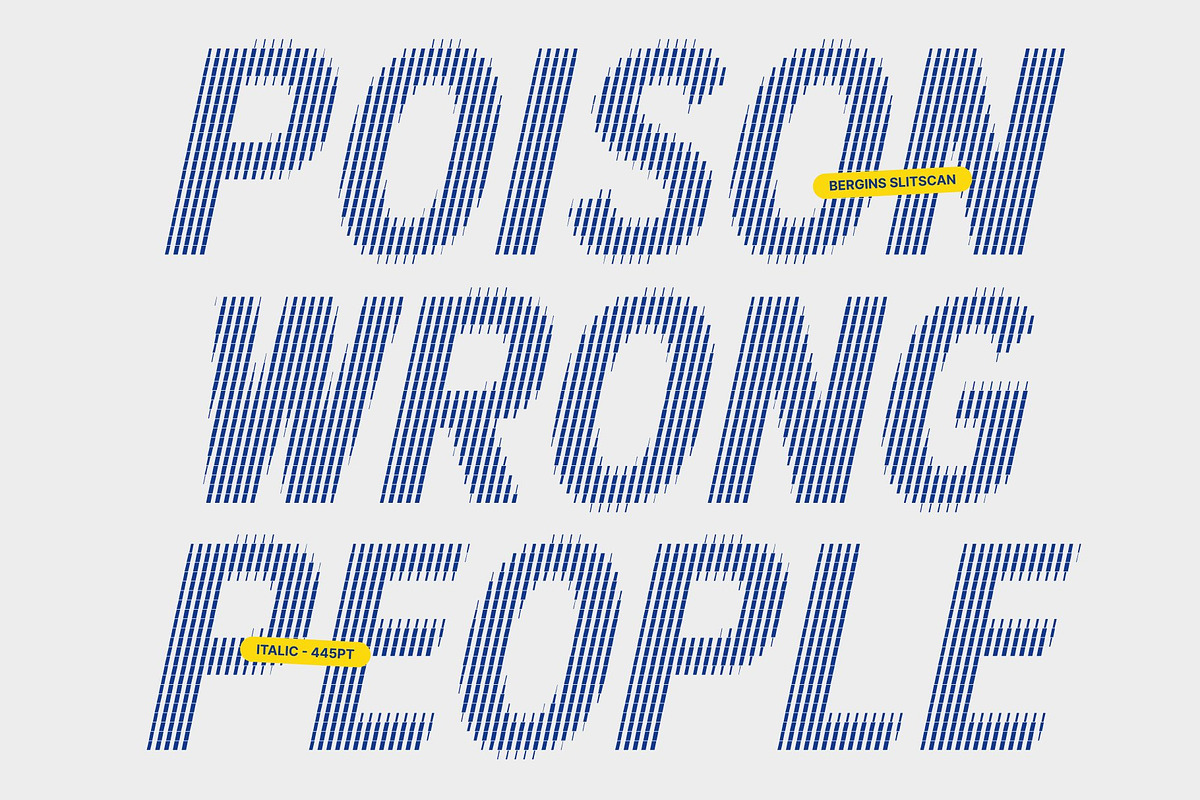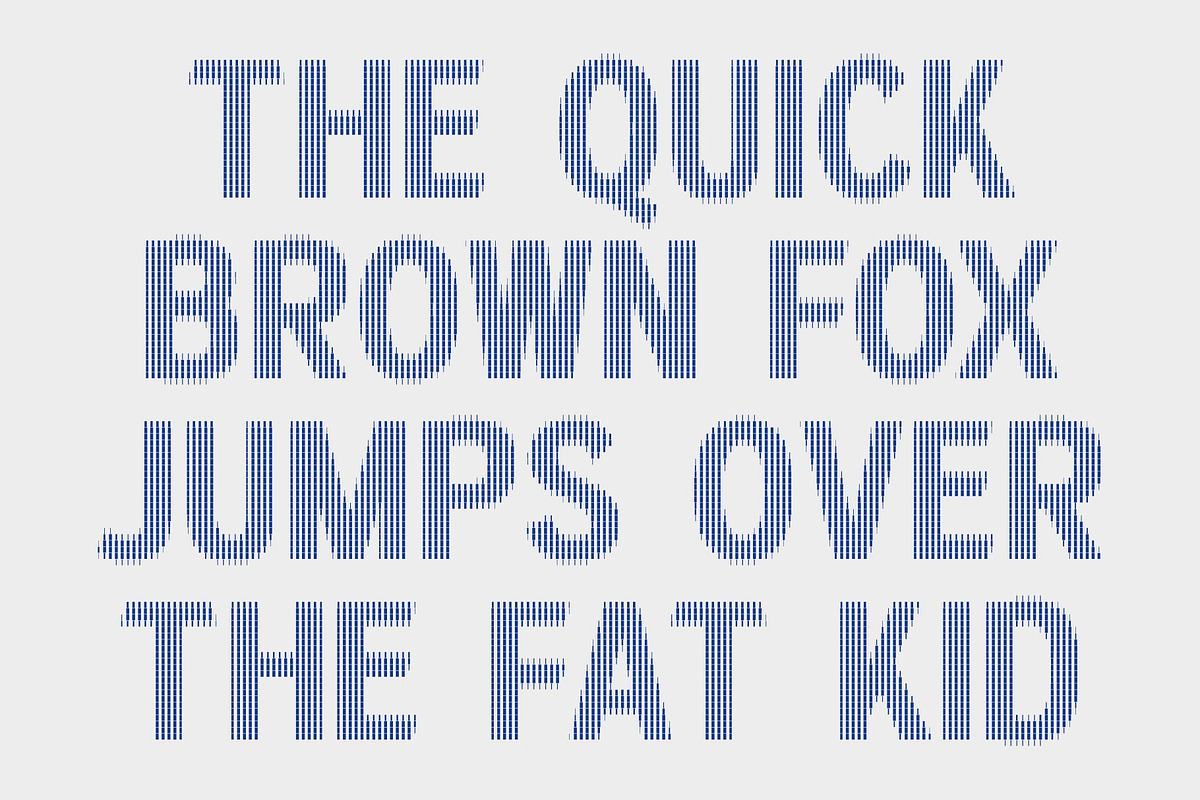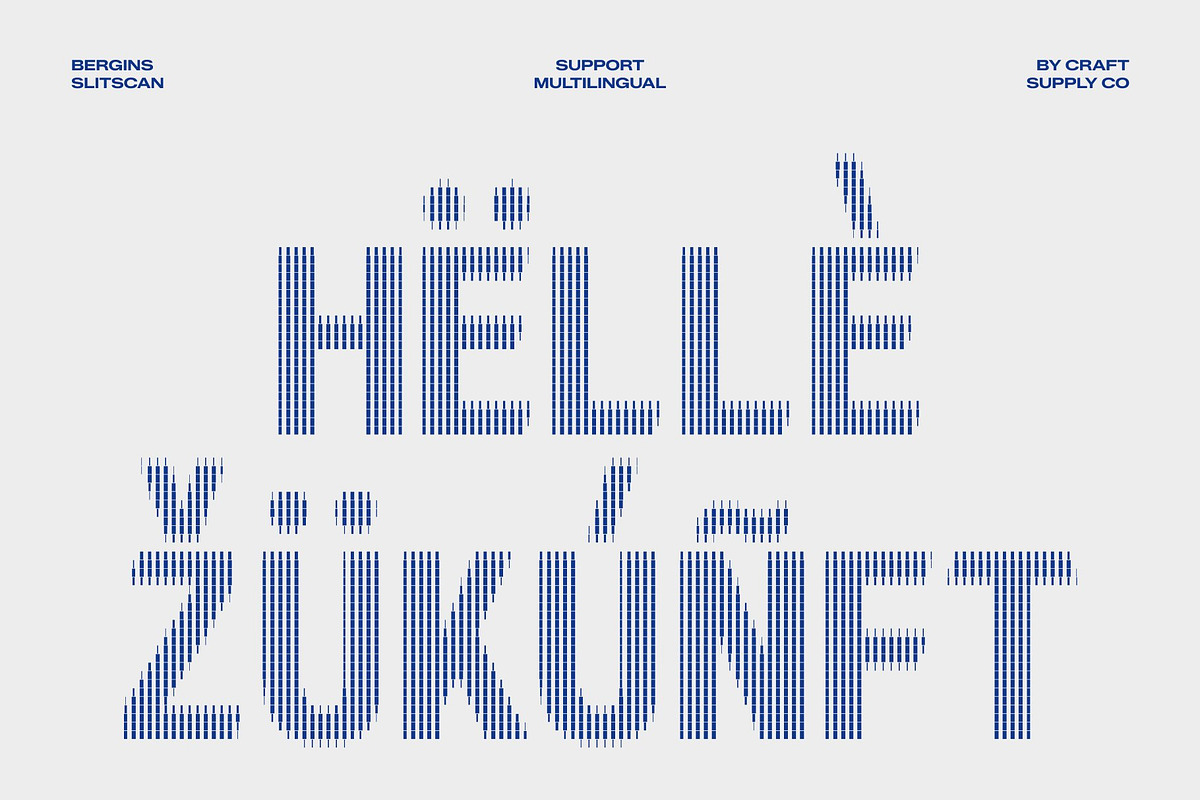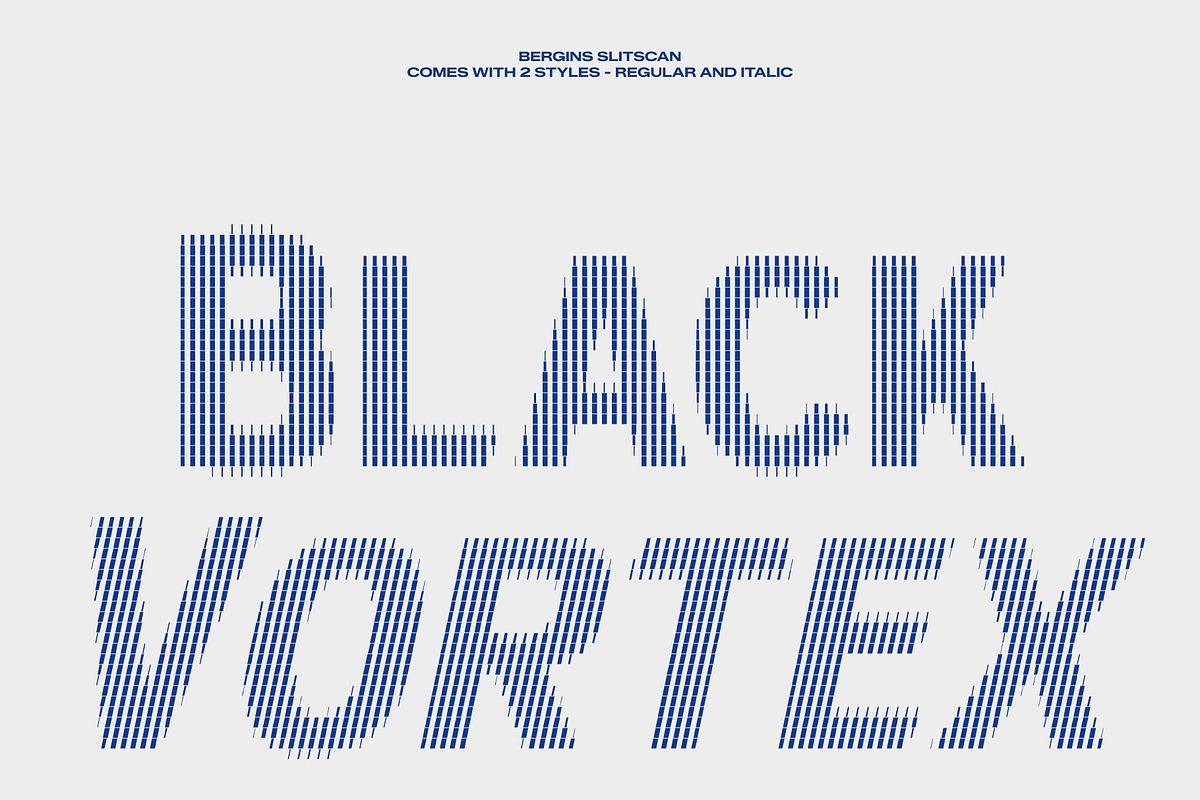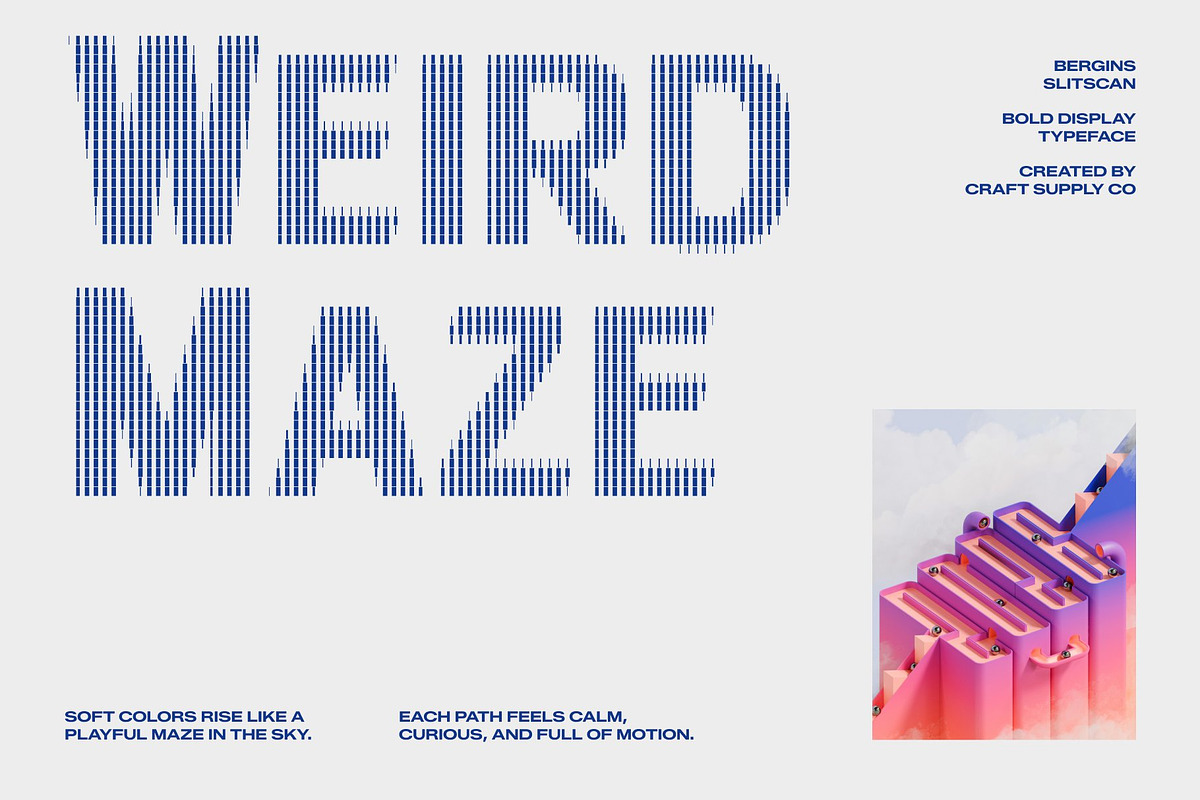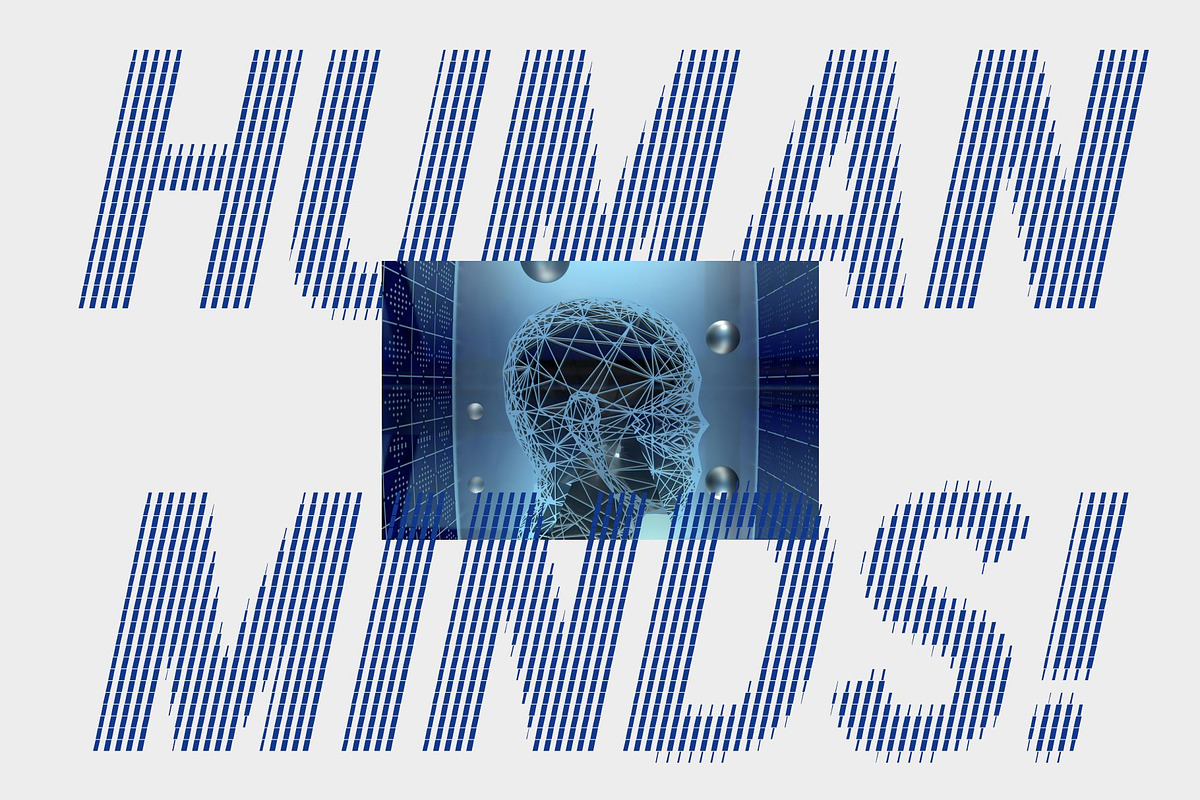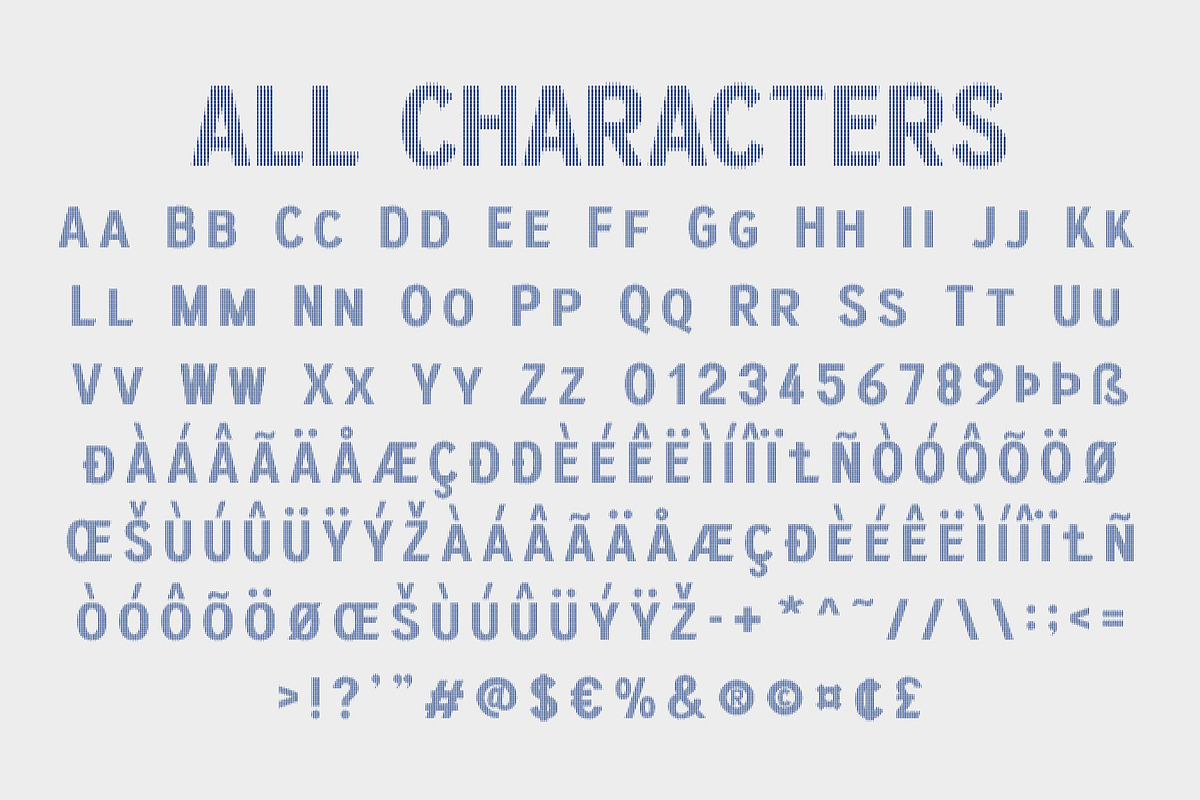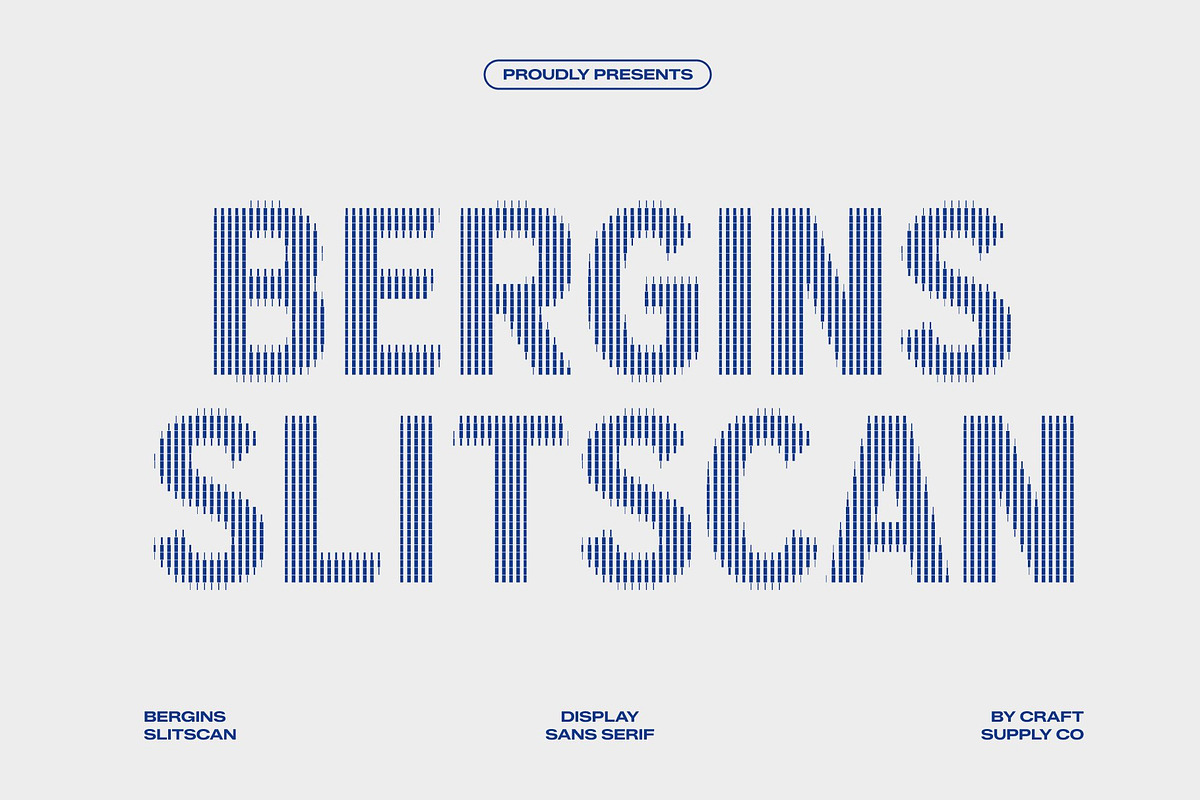
Bergins Slitscan
Bergins Slitscan – Modern Grotesque with Futuristic Motion
Modern Grotesque Aesthetic This is a contemporary grotesque sans serif typeface designed with clean structure and refined modernity. Its balanced proportions and minimalist construction create a sleek, professional appearance that feels fresh, versatile, and visually sophisticated.
Slitscan Effect: Dynamic Motion & Digital Character Inspired by the slit-scan visual technique, this typeface incorporates vertical sliced layers that introduce movement, rhythm, and subtle digital distortion. The effect enhances its modern personality while preserving the clarity and elegance of its grotesque foundation.
Clarity and Precision in Every Detail Every curve and stroke is carefully crafted to maintain strong readability and visual precision. The clean construction ensures excellent legibility across various sizes and platforms, making it suitable for both display compositions and professional communication.
Versatility for Contemporary Design This font adapts seamlessly across branding, editorial layouts, websites, packaging, posters, and digital interfaces. Its combination of modern grotesque structure and futuristic motion allows it to work effortlessly in both creative and corporate environments.
Balanced Between Simplicity and Innovation The font blends timeless grotesque principles with experimental visual energy, creating a refined yet forward-looking typographic voice. This balance makes it ideal for contemporary projects that require professionalism with a subtle modern edge.
Bergins Slitscan Regular
Bergins Slitscan Italic